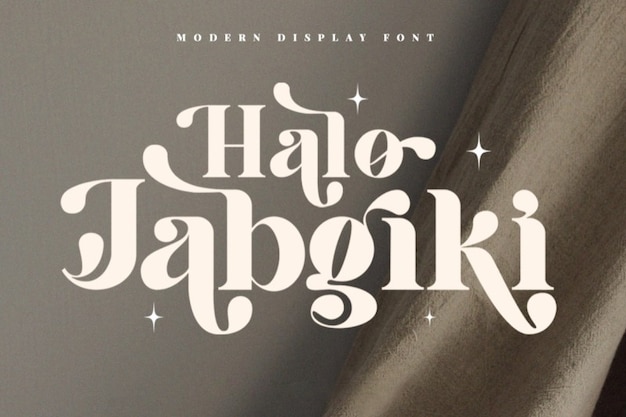
Halo Jabgiki Font
Halo Jabgiki! This chunky cool modern take on a retro font classic is packed with plenty of alternates and ligatures to really give you a wide range of customization options. Perfect for retro headers, signs, logos, prints, etc. Download it now!